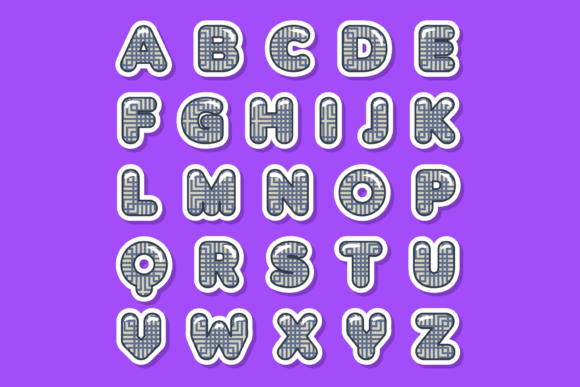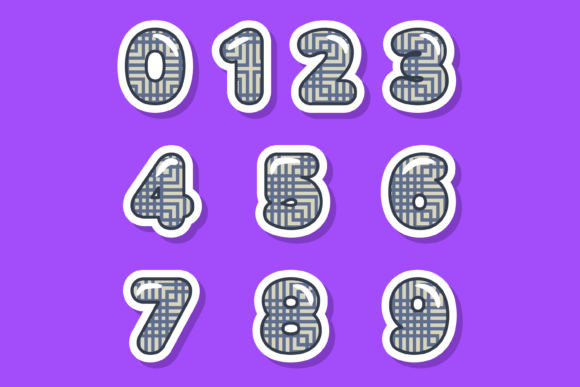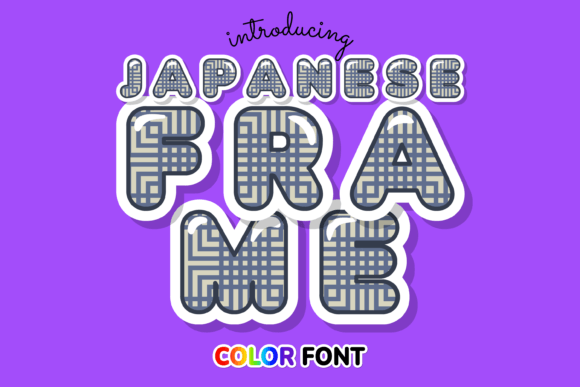
Introduction to Japanese Frame Font
Japanese Frame is an incredibly cool color font.
Whether you use it for custom designs, DIY crafts, or just any creation that requires a lovely touch, this font will be an amazing choice Note.
Key Features of Japanese Frame Font
Why Choose Japanese Frame Font?